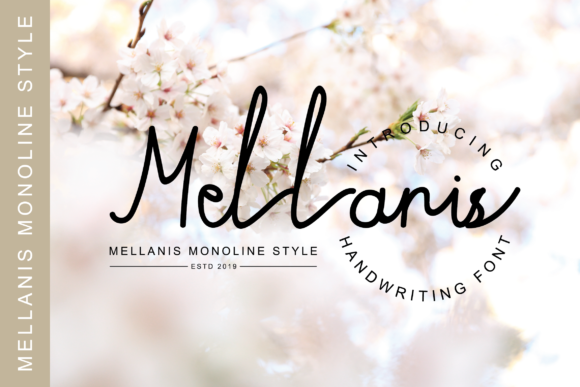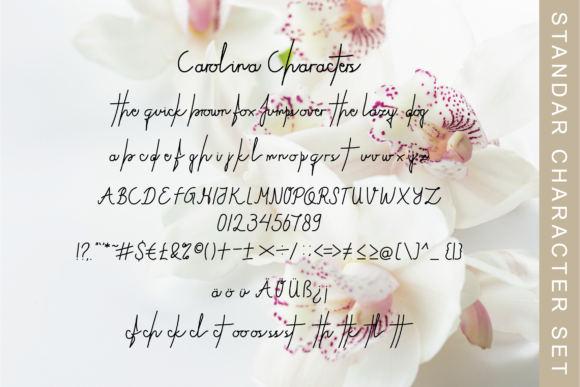
About Mellanis Font
The Mellanis is an amazing monoline script font. It has a natural hand-drawn look and is perfect for branding projects, logos, wedding designs, social media posts, advertisements, product packaging, product design, labels, photography, watermarks, invitations, stationery and more!